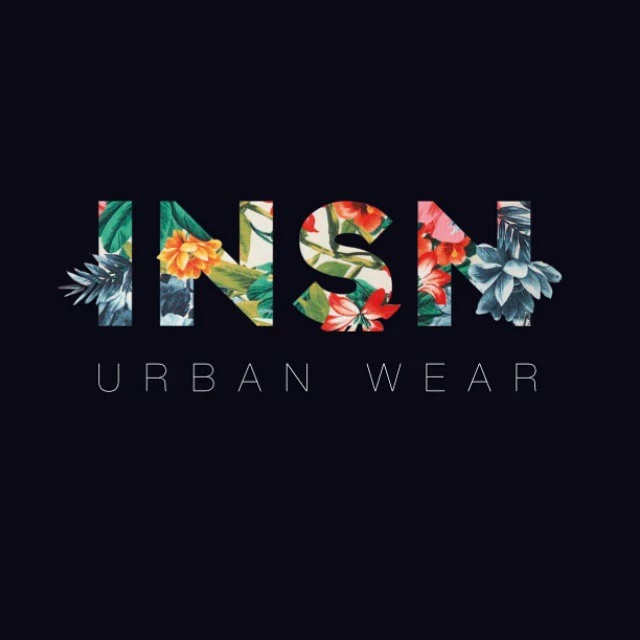
Floral Font Fill Typography
Looking to find out how I can achieve this same effect with a floral pattern or picture in illustrator?
Some of the flowers overlap the trim of the letters and I am wondering if anyone has a similar tutorial available.
It can be done using some set type and the pen tool:
Start with the pattern (Picture One above). Set the type you want and place it to your liking. Convert the type to outlines and make sure that the outlined text is ungrouped and no longer a compound path (Shift-Option/Alt-Command/Control-8) (Picture Two). With the pen tool draw the outline of the flowers you want to overlap (Picture Three). Select each letter and its overlapping shape one at a time and use the Pathfinder Unite function to combine them into one shape (Picture Four). When all the letters are done select them all and make them into a single Compound Path (Command/Control-8) (Picture Five). Then select the compound path and the background pattern and make a clipping mask (Picture Six). Place a black square behind it for the final result. Once you get the black square in place you might want to tighten the pen tool paths around the exposed flowers using the direct-selection tool.
I  recommend doing this in Photoshop, as you can get a more precise mask of your flower petal that stick out side the letters
It can be done using some set type and the pen tool:
Start with the pattern (Picture One above). Set the type you want and place it to your liking. Convert the type to outlines and make sure that the outlined text is ungrouped and no longer a compound path (Shift-Option/Alt-Command/Control-8) (Picture Two). With the pen tool draw the outline of the flowers you want to overlap (Picture Three). Select each letter and its overlapping shape one at a time and use the Pathfinder Unite function to combine them into one shape (Picture Four). When all the letters are done select them all and make them into a single Compound Path (Command/Control-8) (Picture Five). Then select the compound path and the background pattern and make a clipping mask (Picture Six). Place a black square behind it for the final result. Once you get the black square in place you might want to tighten the pen tool paths around the exposed flowers using the direct-selection tool.
It looks like a clipping path is being used for the florals that are being cut off by the lettering. The flowers that are sticking out beyond the lettering are just positioned on top of the clipping path.
To make a Clipping Path, position your type (not outlined, just regular editable type) above the flowers and leaves in your stacking order. Select both the type and the leaves/flowers and go to Object > Clipping Path > Make. The leaves and flowers that are sticking out beyond the type, should be positioned above the Clipping Path.
Basically that one is done by using some image with flowers. Then put the text on it, convert the text to outlines. Draw some paths around some of the flowers. Add that path to the text outline. Make a clipping mask.